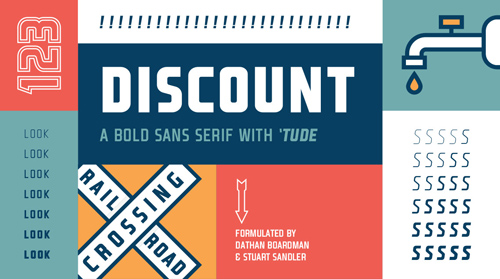
- A sans serif, all-caps typeface with 16 styles! It all started with the street sign concept. There are a billion different ways to do a street sign, but most of them just feel old. Tactile is now no longer hip. No more shadows, no more 3D skeumorphic, nothing. I sat down, started to make the sign using a font that Dathan (Boardman) and I created and it just… appeared!